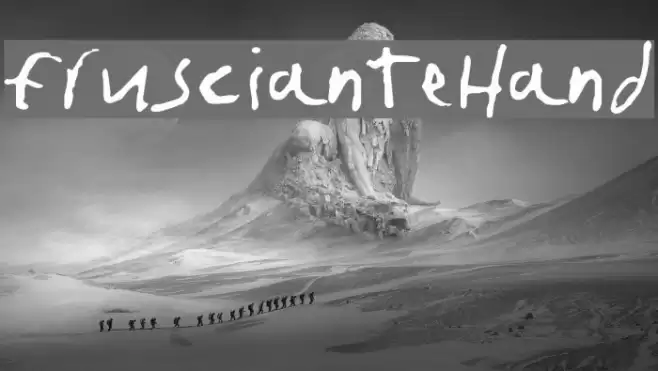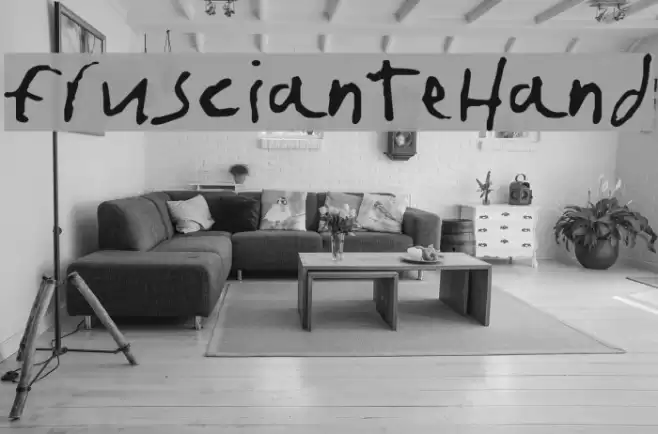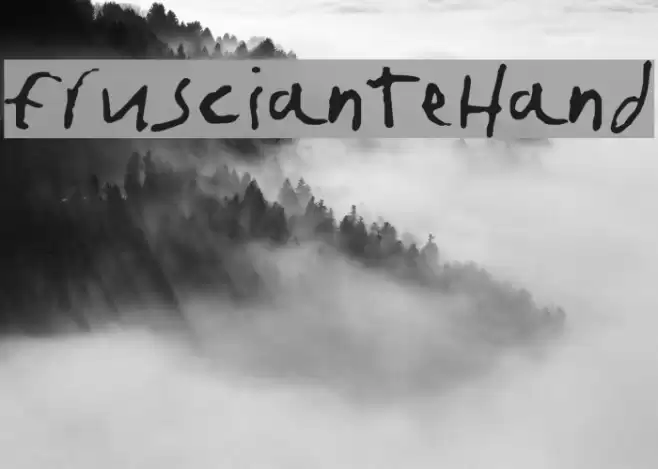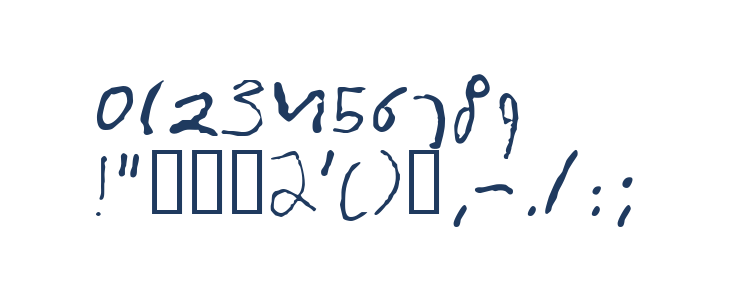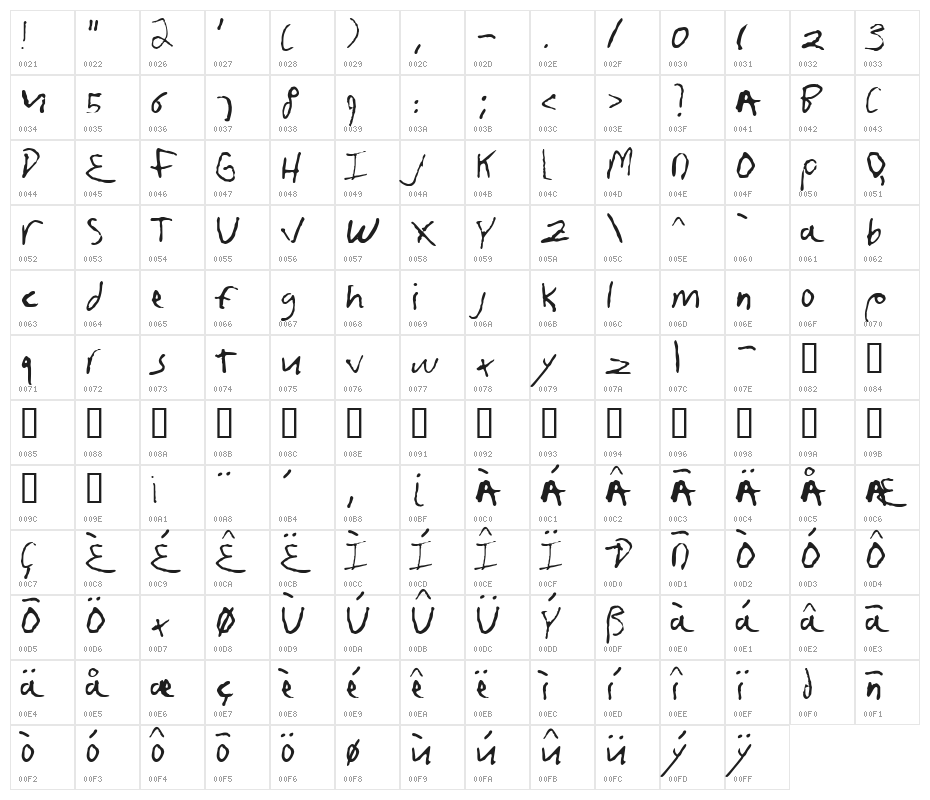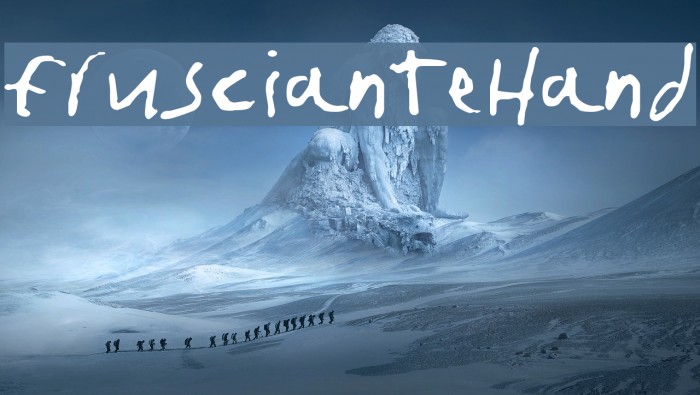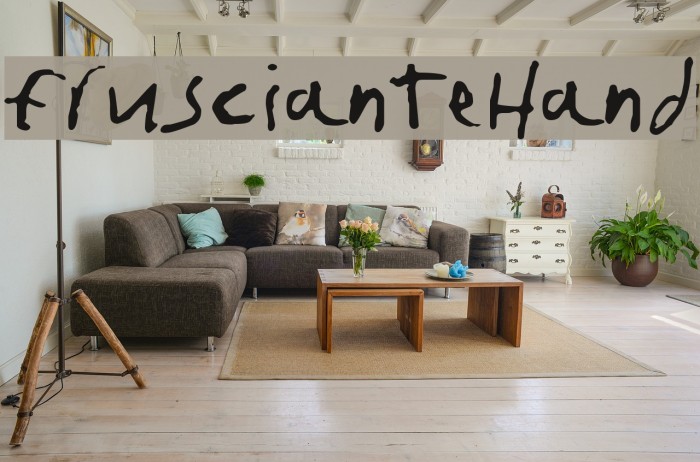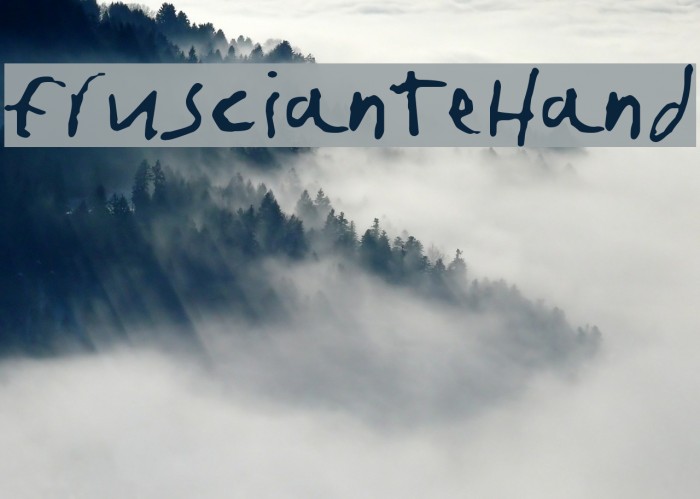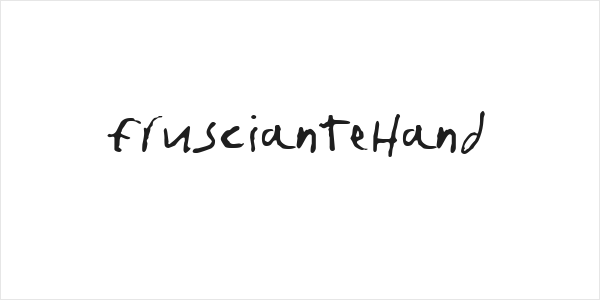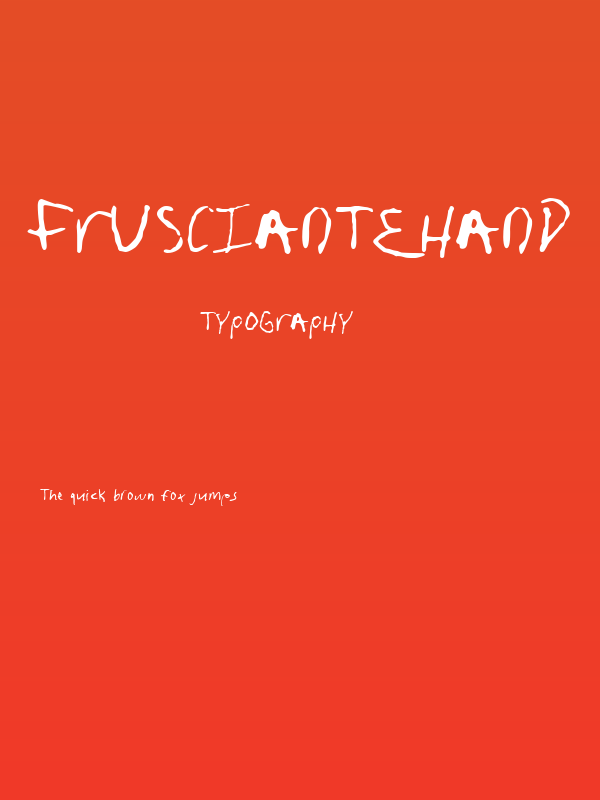
fruscianteHand Font
fruscianteHand Description
This font exudes a raw, expressive style reminiscent of handwritten notes. The characters are unevenly shaped, with a spontaneous and organic feel, capturing the essence of personal handwriting. The uppercase letters are bold and slightly irregular, while the lowercase letters maintain a consistent flow, adding to the font's casual and approachable nature. Numbers and special characters follow the same handwritten aesthetic, with varying stroke thickness and a playful, artistic touch. This font is ideal for projects that require a personal, human touch, evoking creativity and individuality.
A raw, expressive handwritten font with a personal touch from Handwritten fonts.
- Proposed Projects: Ideal for personal notes, artistic projects, informal invitations, and creative branding.
- Use Case: Logos, Headlines, Artistic projects